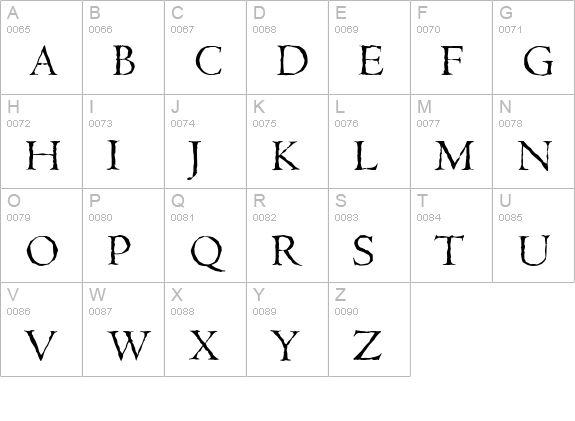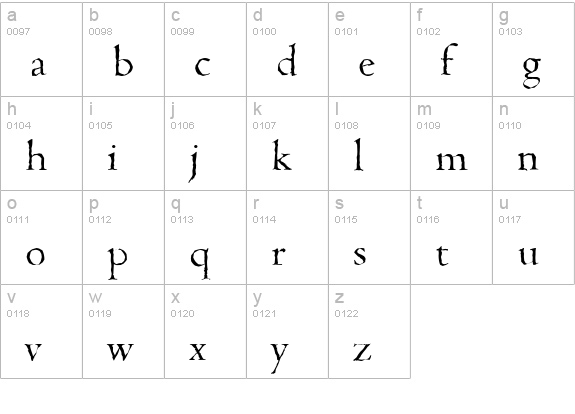
CambridgeAntique-Light-Regular Font Details
CambridgeAntique-Light-Regular is a refined, elegant variant in the CambridgeAntique typeface family \xE2\x80\x94 well suited to elegant body text, refined sub-headings, and luxury branding.
Cambridge Antique Light Regular font is a timeless and elegant typeface that exudes sophistication and charm. With its delicate serifs and classic letterforms, this font is perfect for adding a touch of vintage flair to your designs. Whether you're working on invitations, logos, or branding materials, Cambridge Antique Light Regular will effortlessly elevate your projects to new heights. The best part? This exquisite font is available for free download at FontsMarket.com. You can easily access this versatile typeface and enhance your creative projects without any cost. Don't miss out on the opportunity to add Cambridge Antique Light Regular to your font collection today!